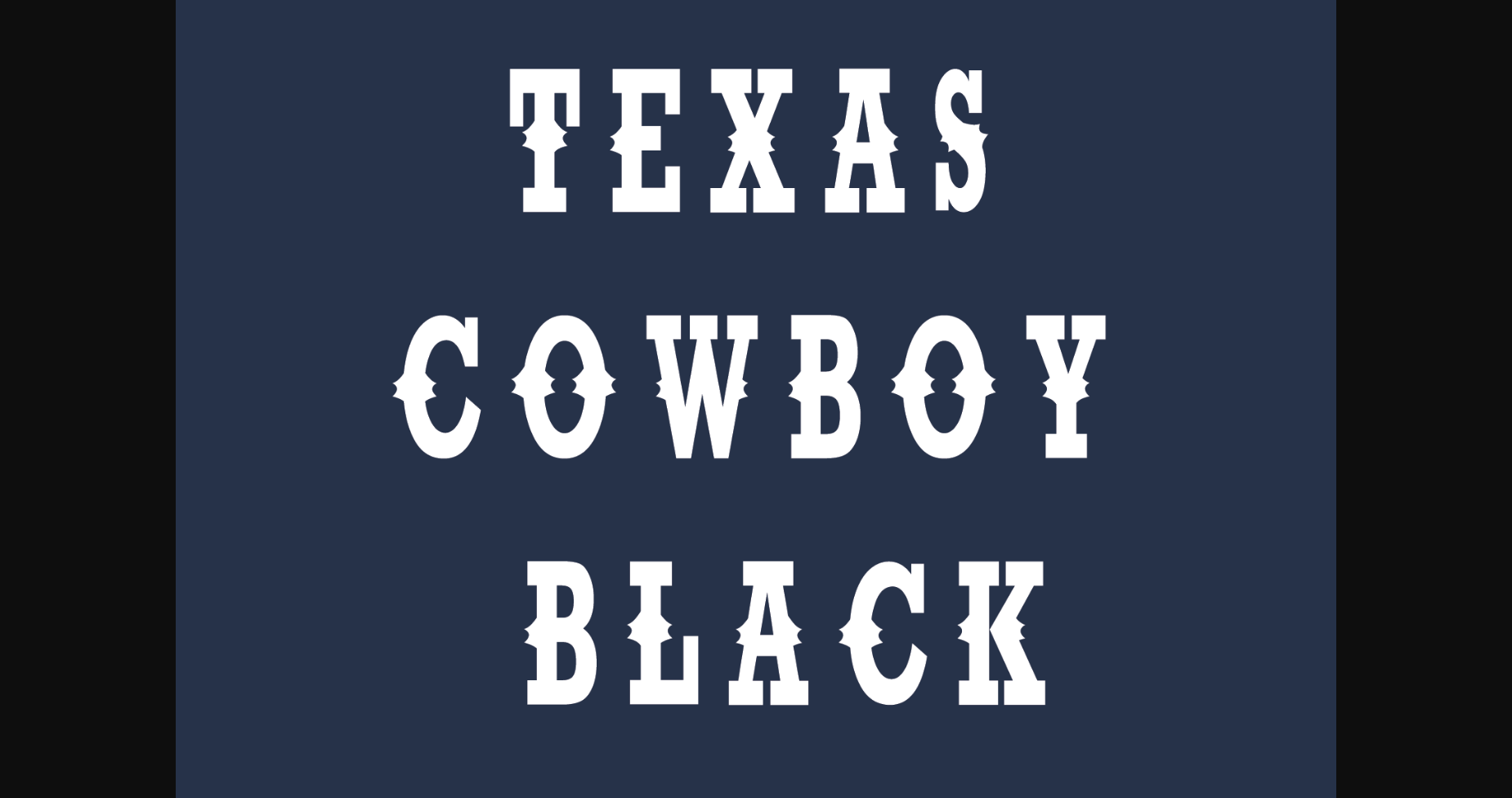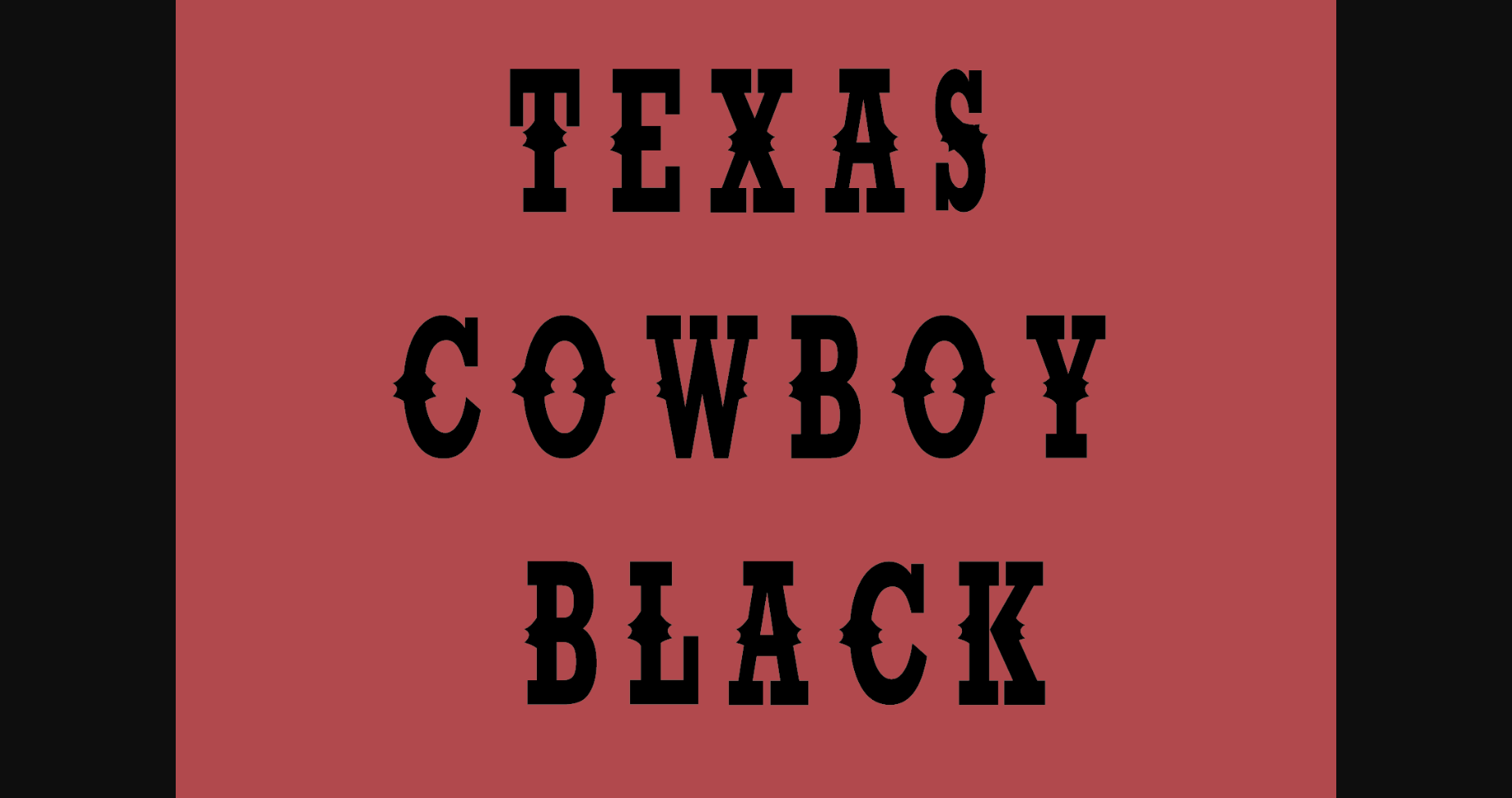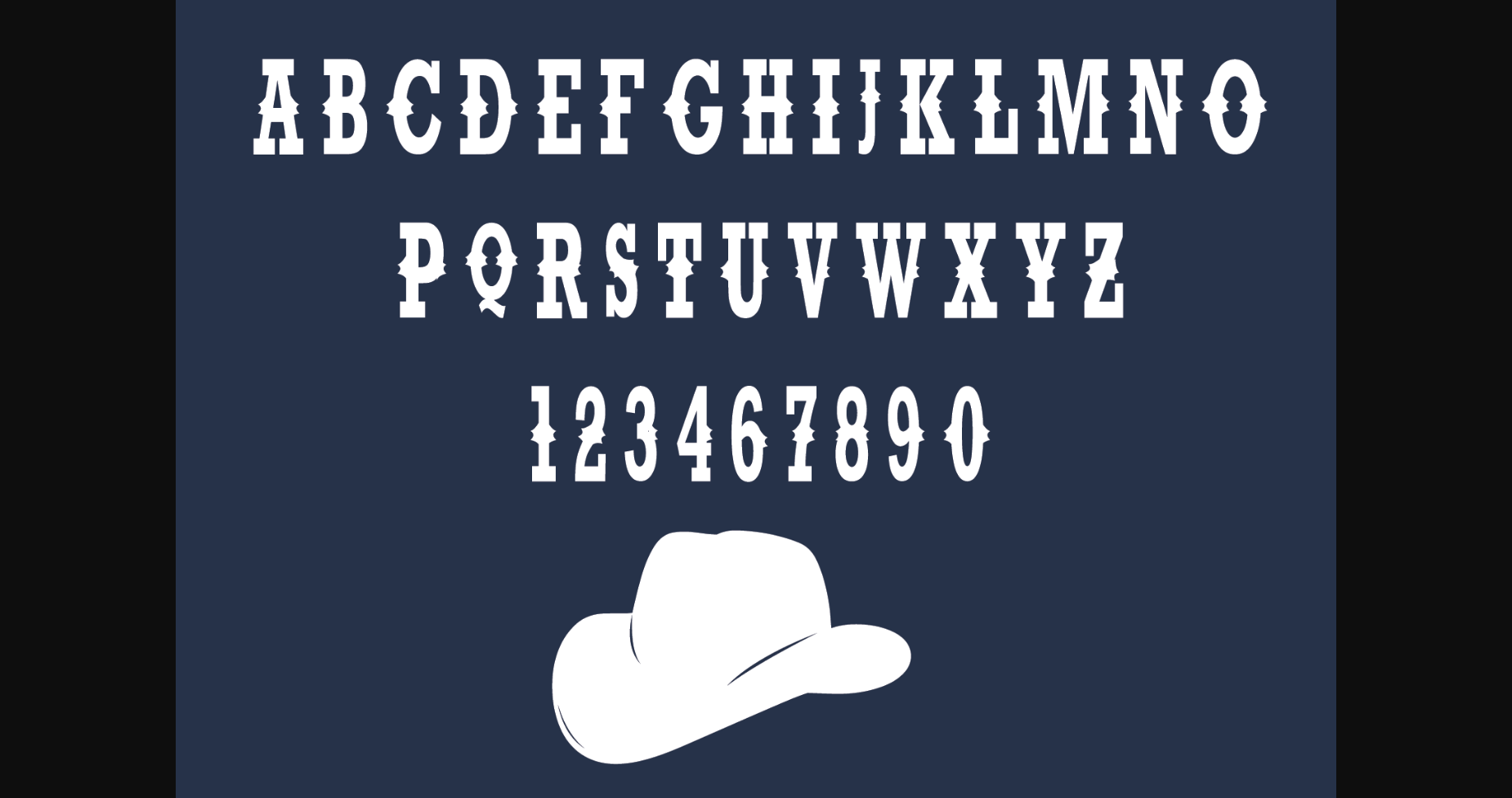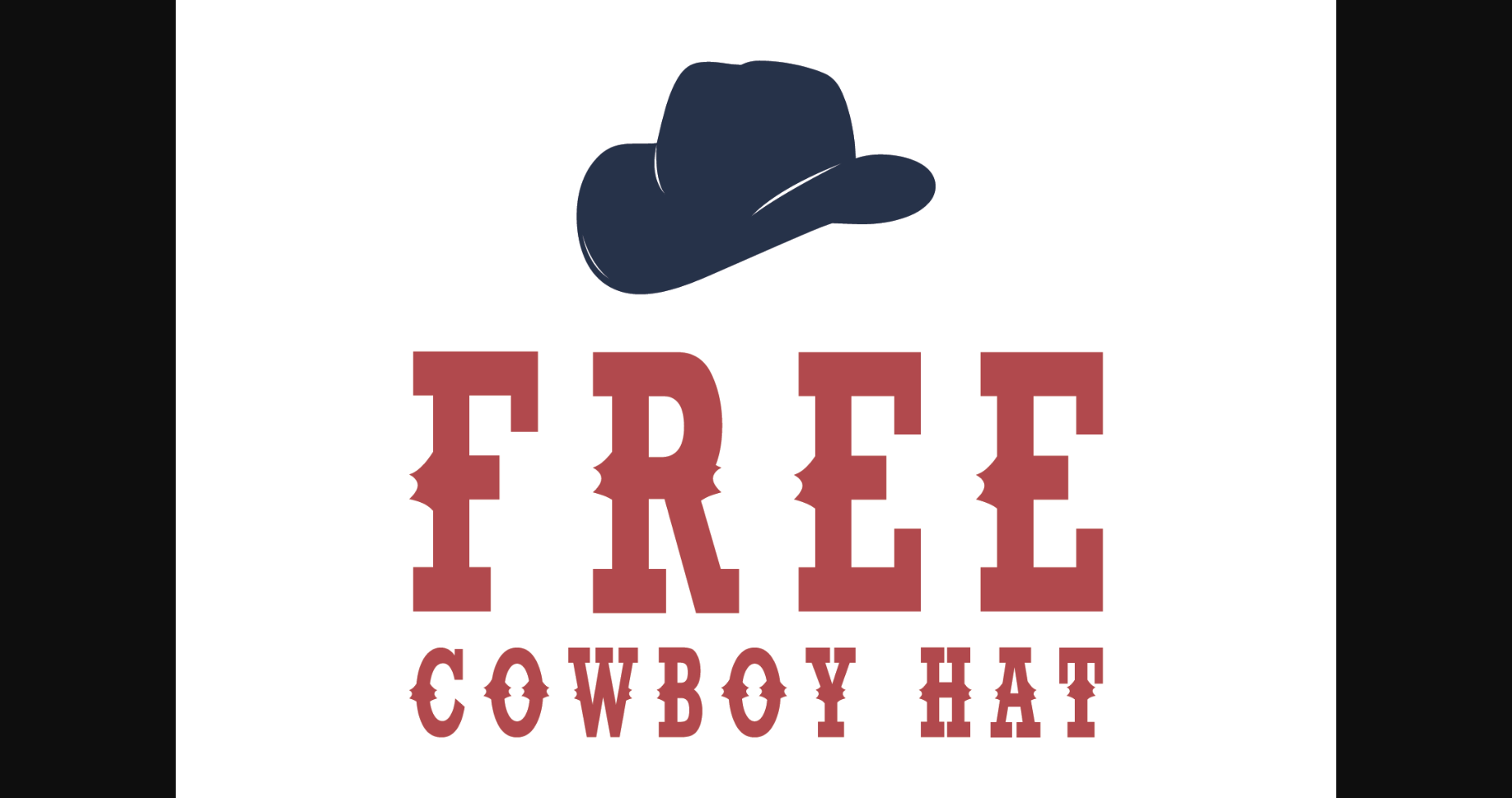
Texas Cowboy Black Font
About Texas Cowboy Black Font
Texas Cowboy Black is a simple and modern sans-serif font designed for a clean and contemporary look. With its geometric shapes and balanced proportions, Minimal Sans is perfect for creating a minimalist aesthetic in logos, web design, and branding.